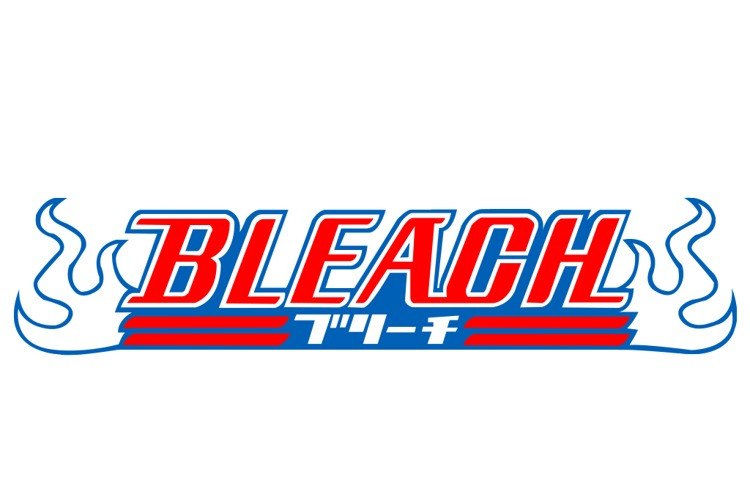
Bleach Display Font, font for anime bleach
Bleach Font, It can easily be matched to an incredibly large set of projects, so add it to your creative ideas and notice how it makes them stand out!
Bleach Display Font, font for anime bleach
Bleach Font, It can easily be matched to an incredibly large set of projects, so add it to your creative ideas and notice how it makes them stand out!
| Classification: | Display Fonts, Techno / Futuristic Fonts |